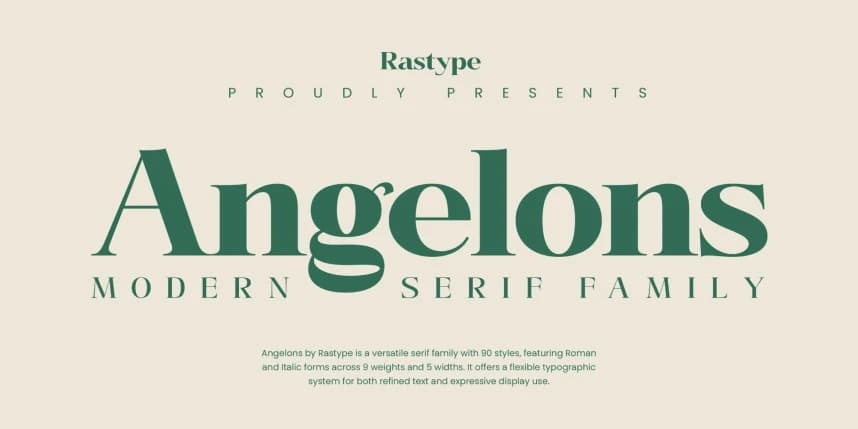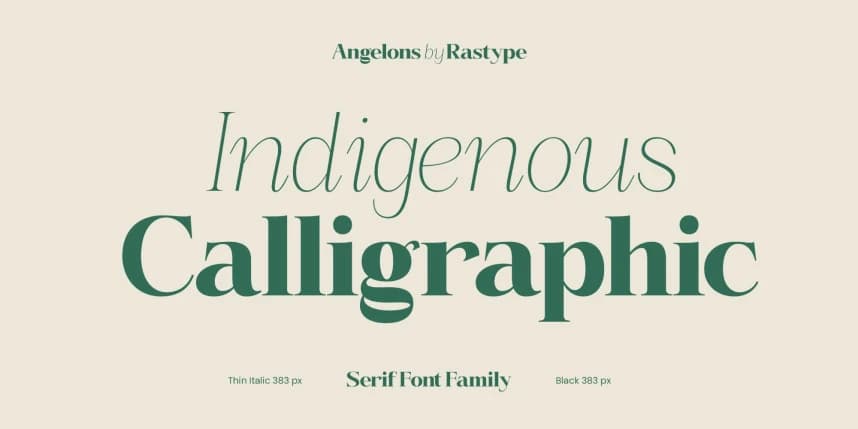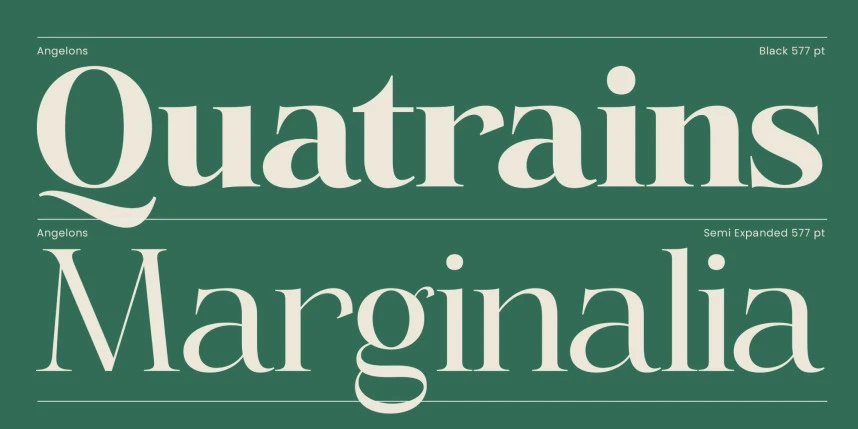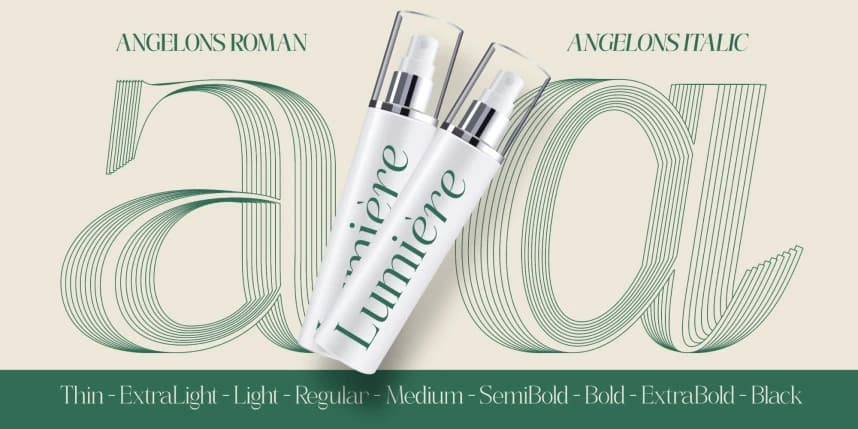
Angelons Font Family
Angelons Font Family is a refined and elegant typeface that blends classic serif traditions with a modern aesthetic. It features gracefully tapered strokes, balanced proportions, and subtle contrast between thick and thin lines